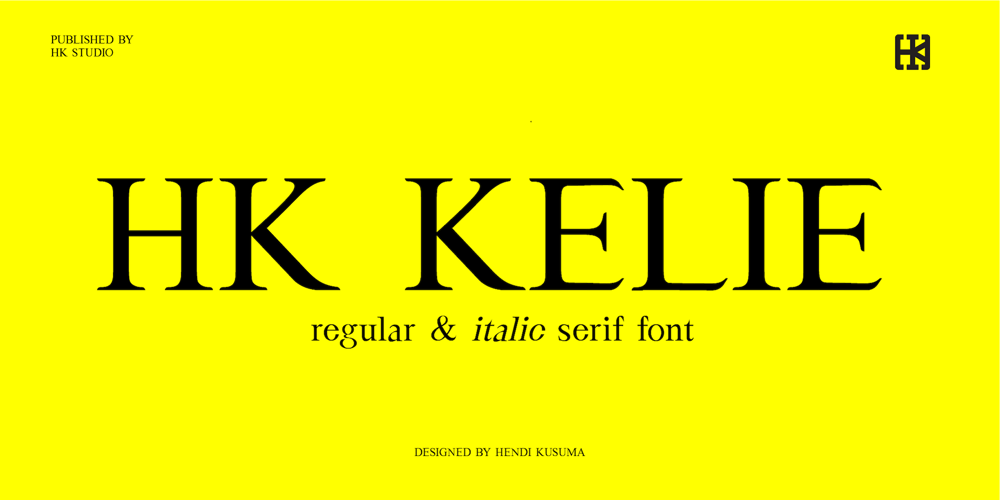
HK Kelie Font Family was designed by Hendi Kusuma and published by HK Studio. HK Kelie contains 2 styles and family package options. HK Kelie is a light to medium-contrast typeface with swashy, medium bracketed serifs, and terminals in the appropriate places, as well as bracketed junctions in various letterforms. The main feature of the typeface is the disconnection between the bowls and the stems. However, the bowl is very close to the stem, creating the illusion of connection.HK Kelie is calm, attractive, and legible — but above all, it is sophisticated.